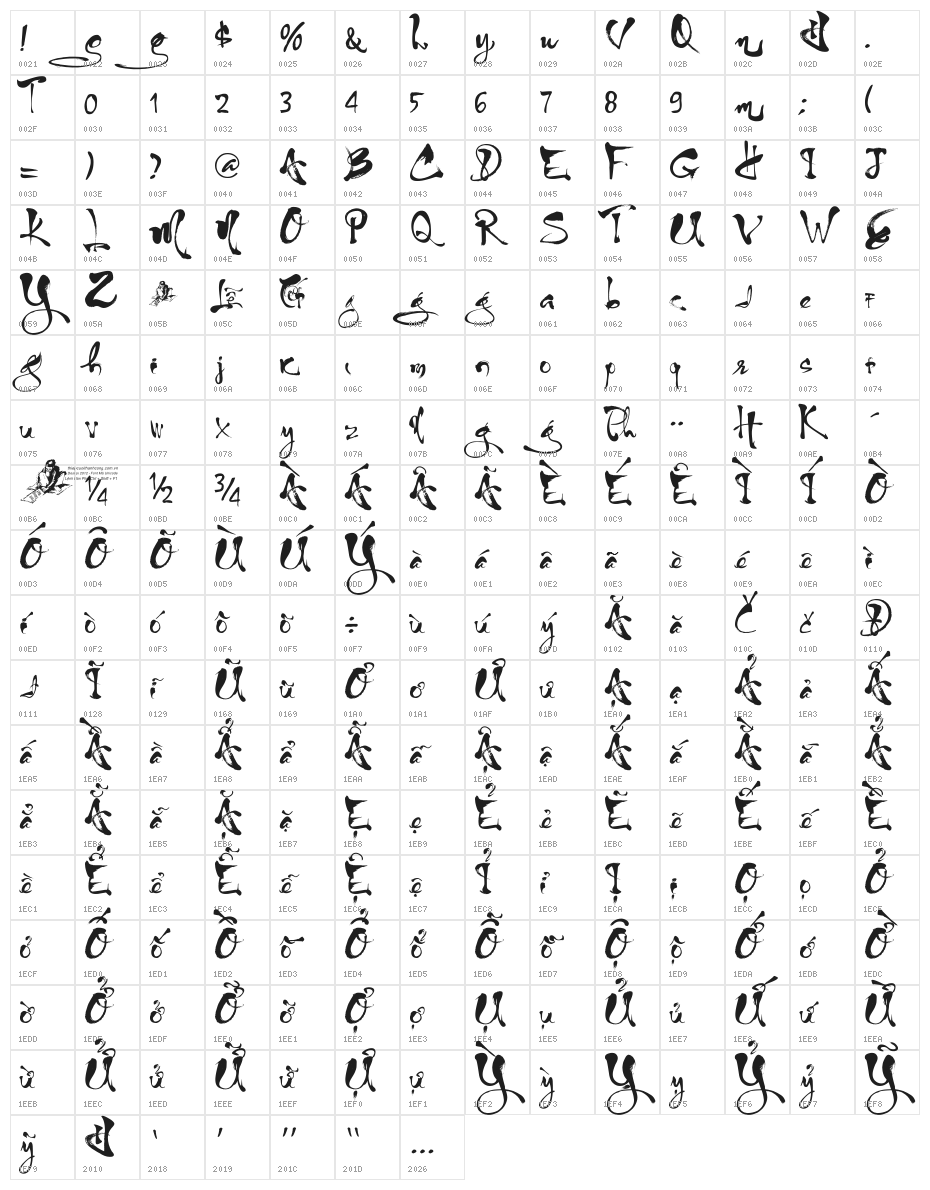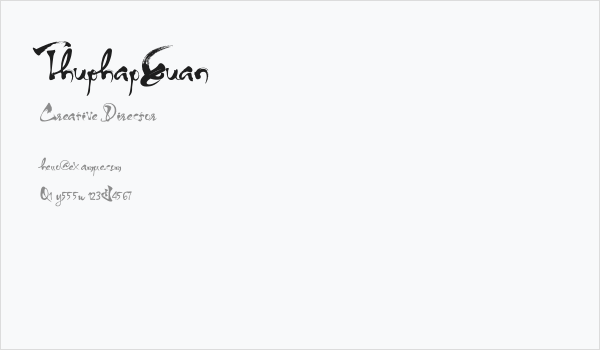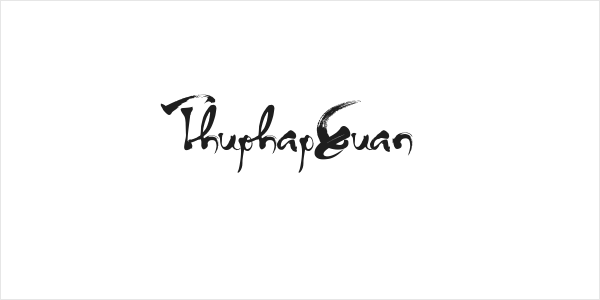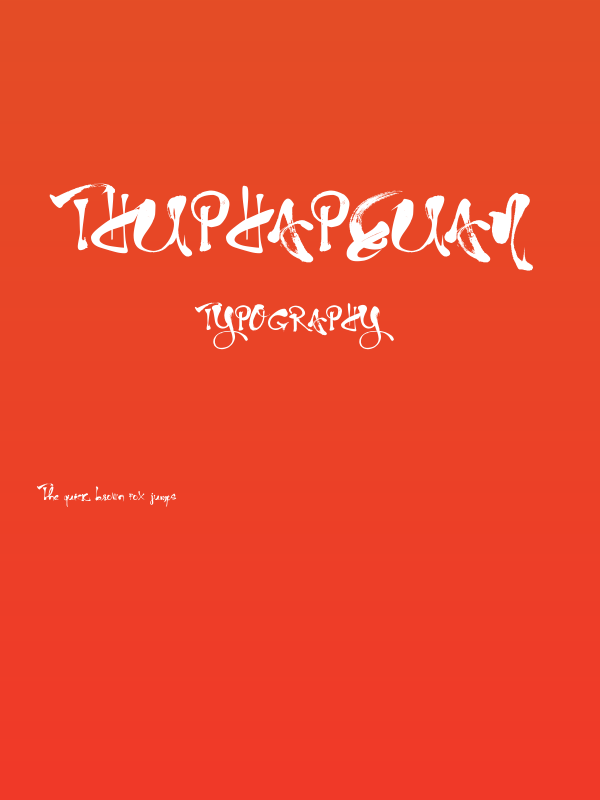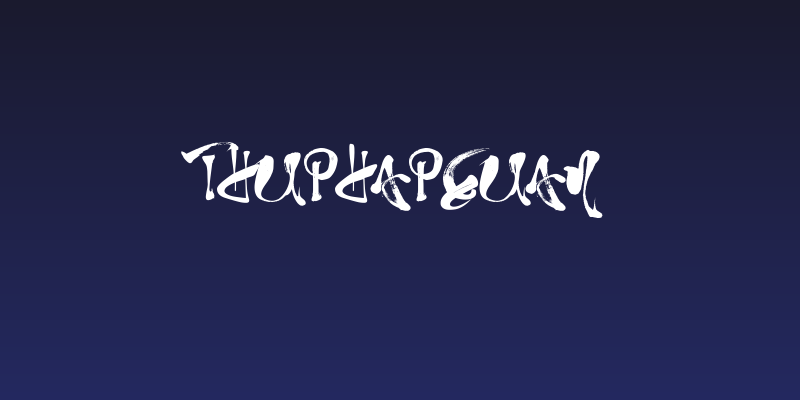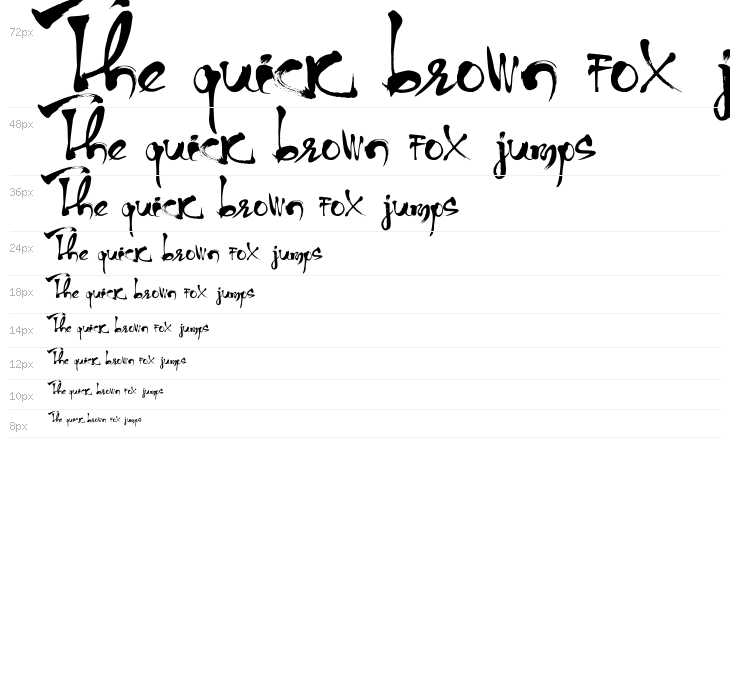
ThuphapXuan Font
✎ Calligraphic
| Kategorien | Calligraphic |
| Anwendungsfall | Logos, Headlines, Artistic projects |
| Vorgeschlagene Projekte | Ideal for wedding invitations, artistic posters, branding for creative businesses, and any project that benefits from a touch of elegance and artistic flair. |